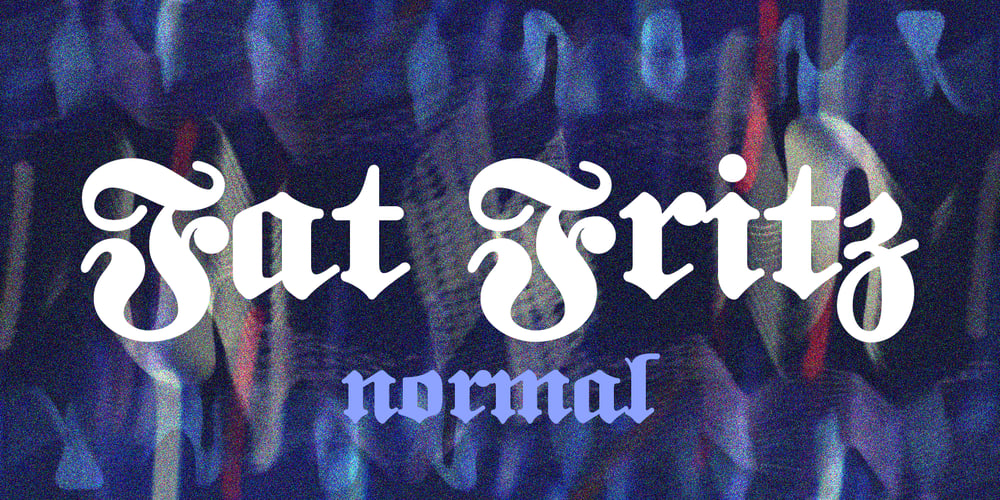
FatFritz Font Family was designed by Gert Wiescher and published by Wiescher Design. FatFritz contains 4 styles and family package options. FatFritz is a rounded blackletter typeface for those of you who do not like the martial side of blackletter typefaces. Being a German, I always had this love-hate relation to Fraktur as we call it. That is why my blackletter typefaces turn out either very elegant or – like this one – round. I designed an elaborate version and a clean version, so that the two can be mixed together for better results. And I am only selling them as a pair, because I want you to get the full benefit for a fair price. Yours sincerely rounding it off, Gert Wiescher.